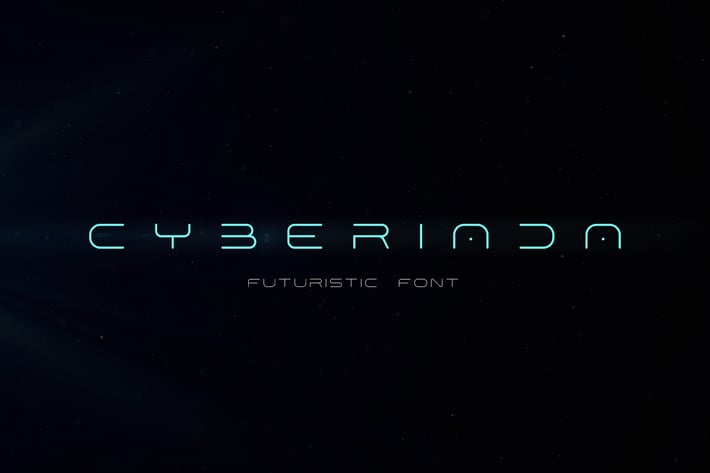
Cyberiada Font Technology Crypto Metaverse Style
Cyberiada font makes futuristic atmosphere and style.
It is good looking as header and as text both.
Use it in your projects in such areas as:
- Metaverse and Crypto projects
- Robotics & Androids
- Hitech
- Future
- space
- science & innovations